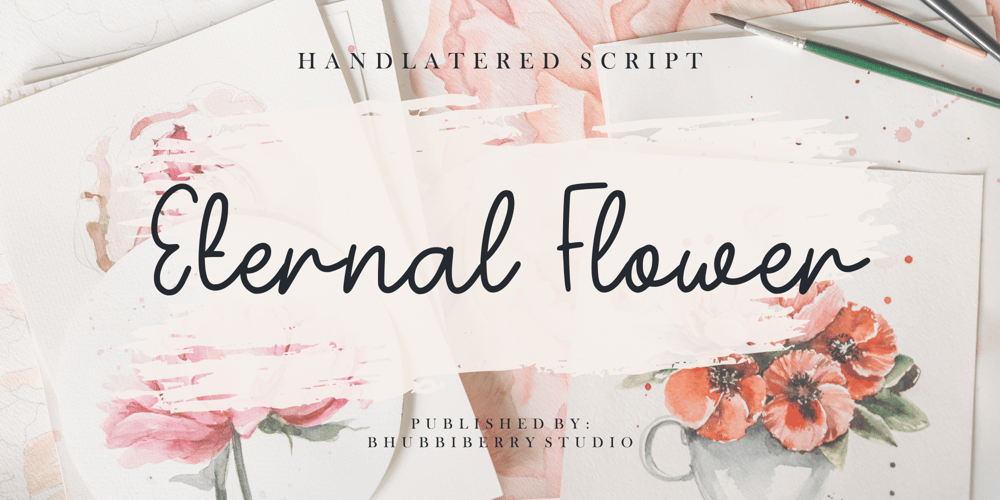
Eternal Flower
Eternal Flower font
Eternal Flower Font Family was designed by Singgih Hadi Riyanto and published by Bhubbiberry Studio. Eternal Flower contains 1 styles and family package options. Eternal Flower is beautiful typeface that handwriting with a charming rhythm. Eternal Flower to create stunningly beautiful designs easily. Support multilingual languages, numbers, punctuation and alternative-ligatures.Warm Regards.